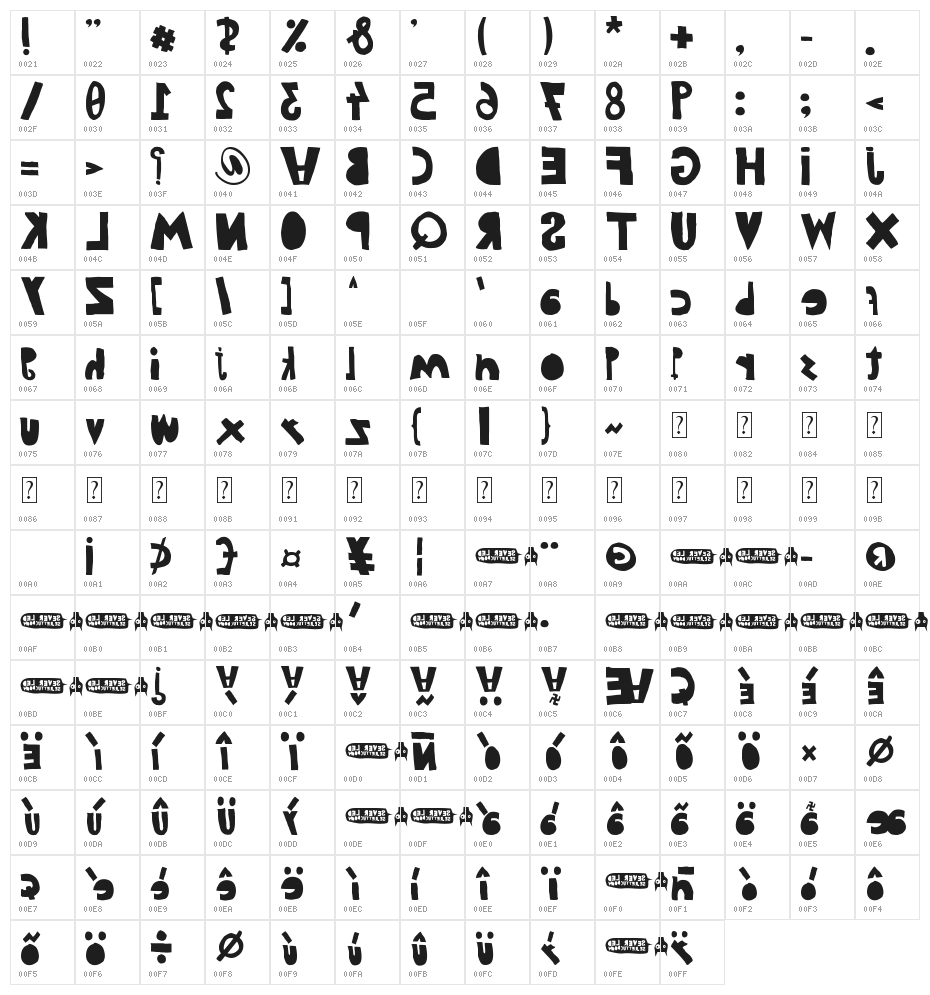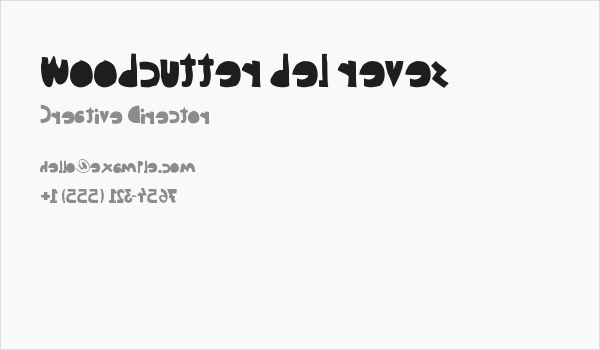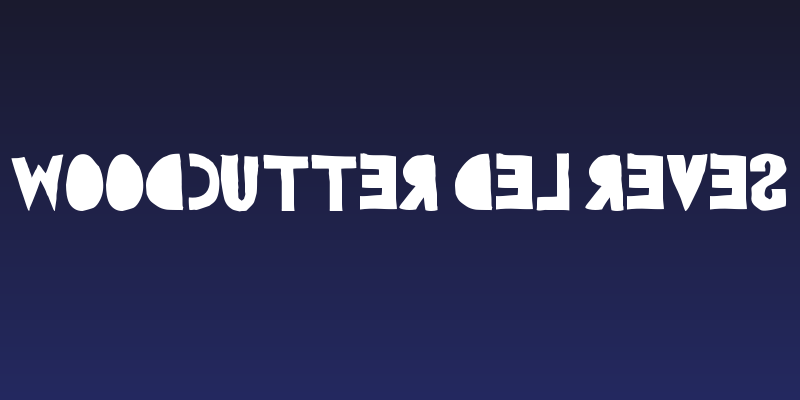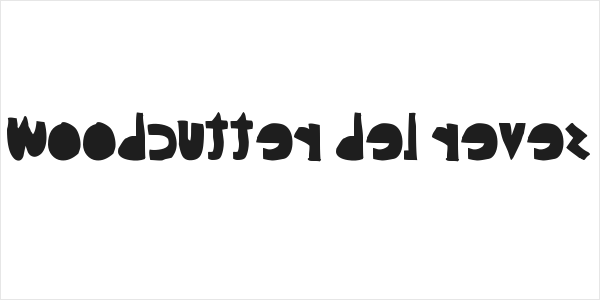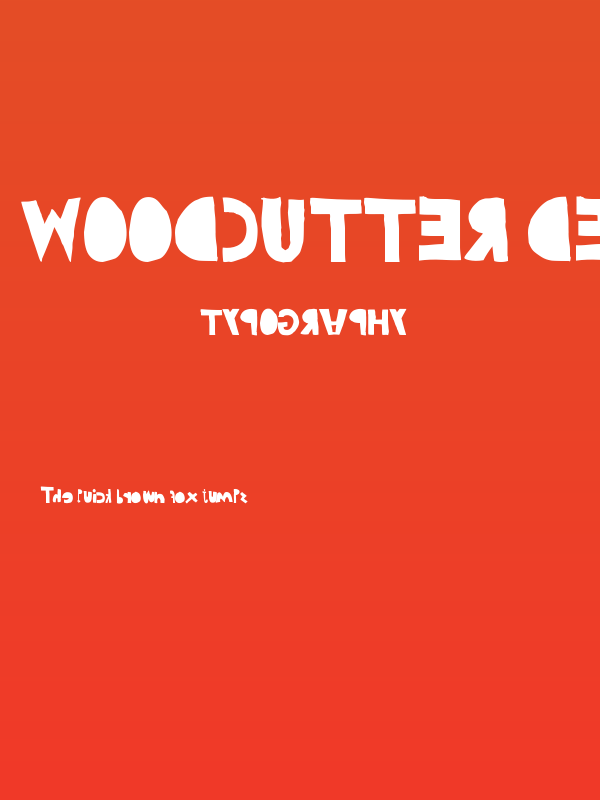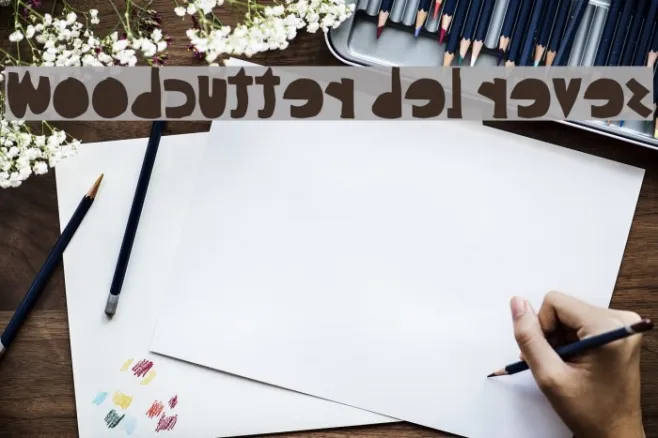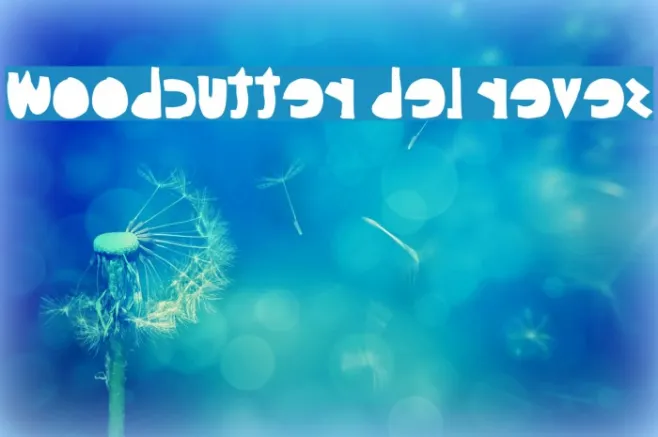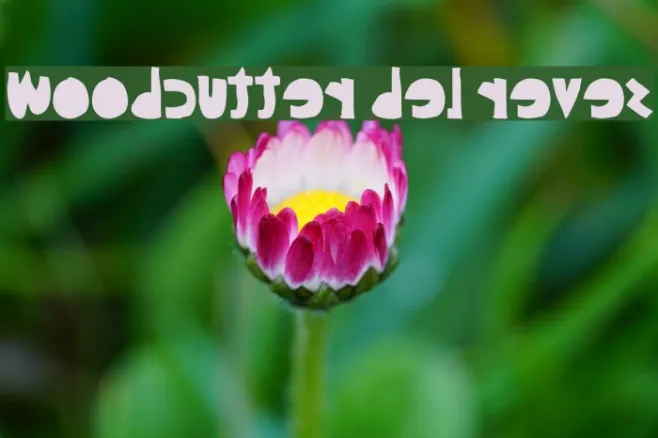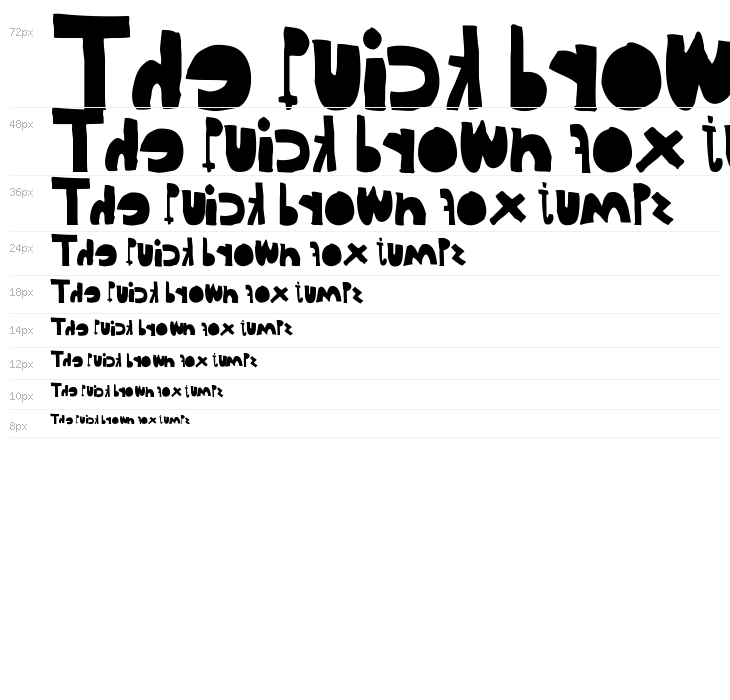
woodcutter del reves Font
woodcutter del reves Description
This font features a playful and whimsical design with reversed characters, creating a unique and eye-catching effect. The letters are bold and irregular, with varying stroke widths that add to its quirky charm. The overall appearance is reminiscent of hand-cut or crafted typography, giving it a rustic and artistic feel. The reversed orientation of the characters makes it stand out, perfect for creative projects that require a touch of humor or surprise. The font includes a full set of uppercase and lowercase letters, numbers, and a variety of special characters, all maintaining the same reversed and bold style.
| Proposed Projects | Ideal for posters, children's book covers, playful branding, and creative advertisements. |